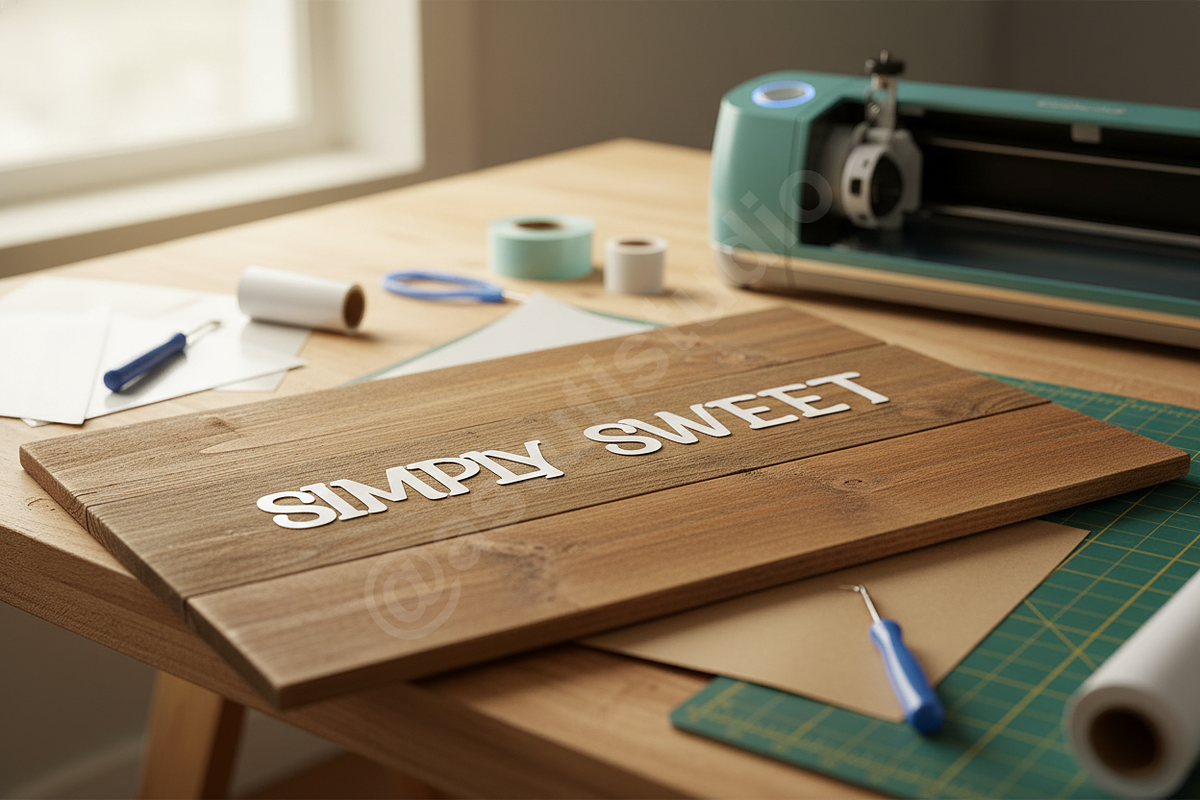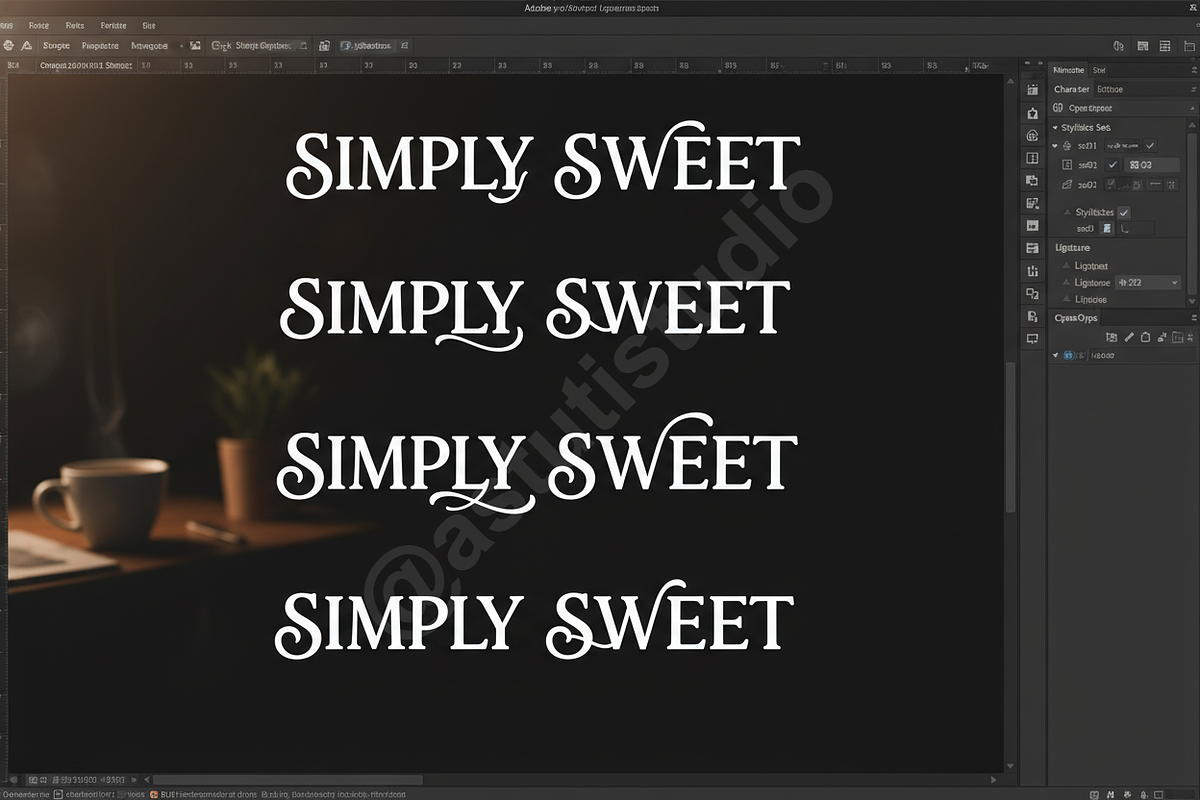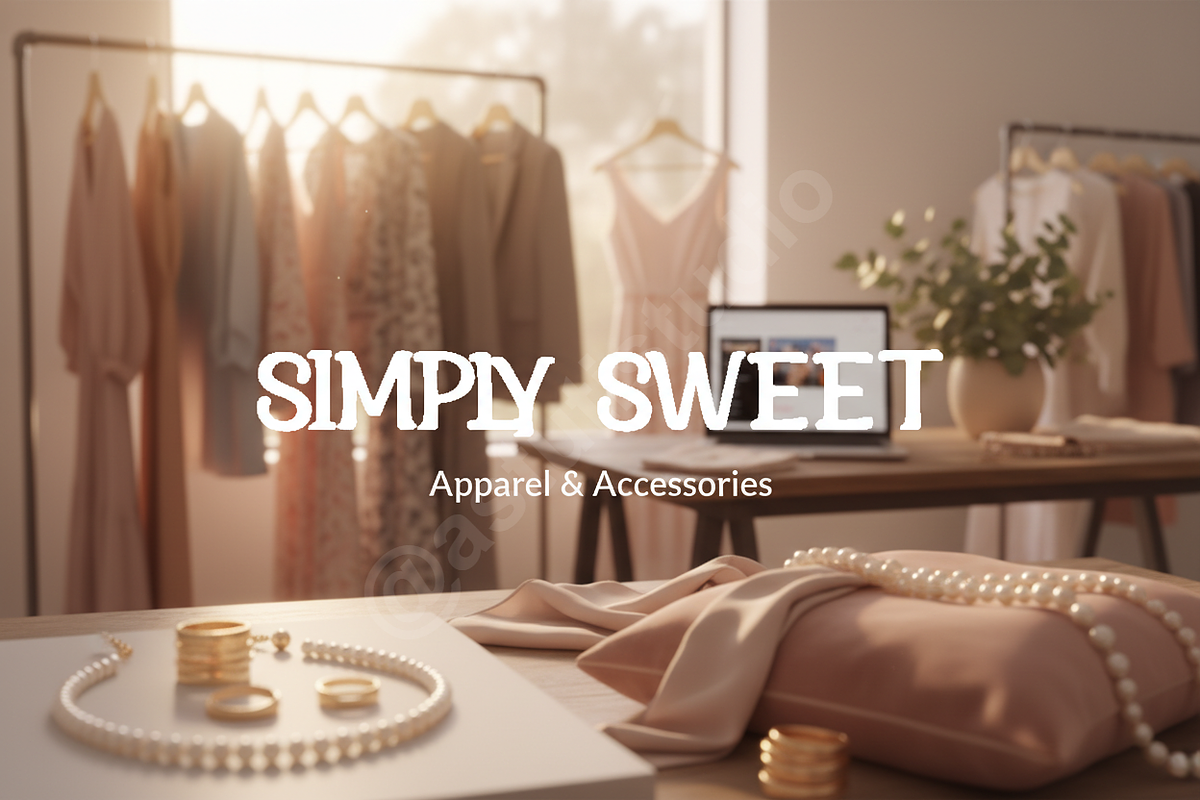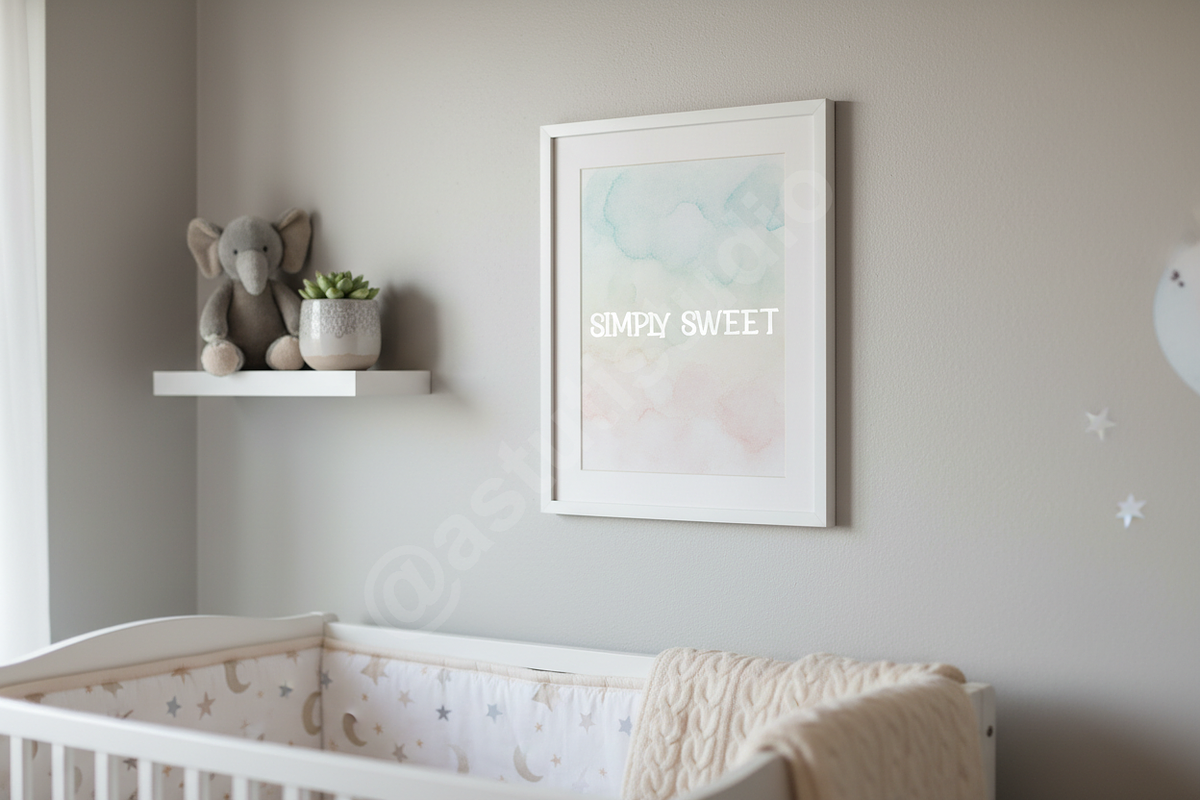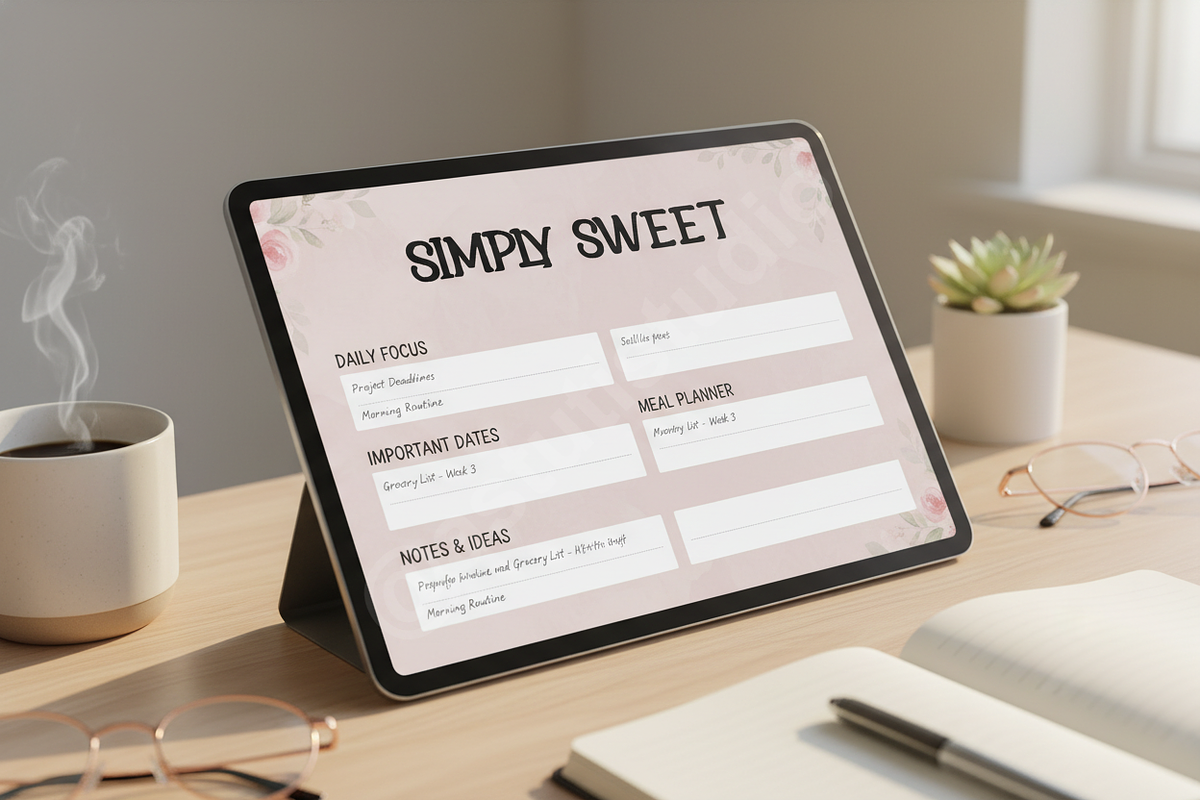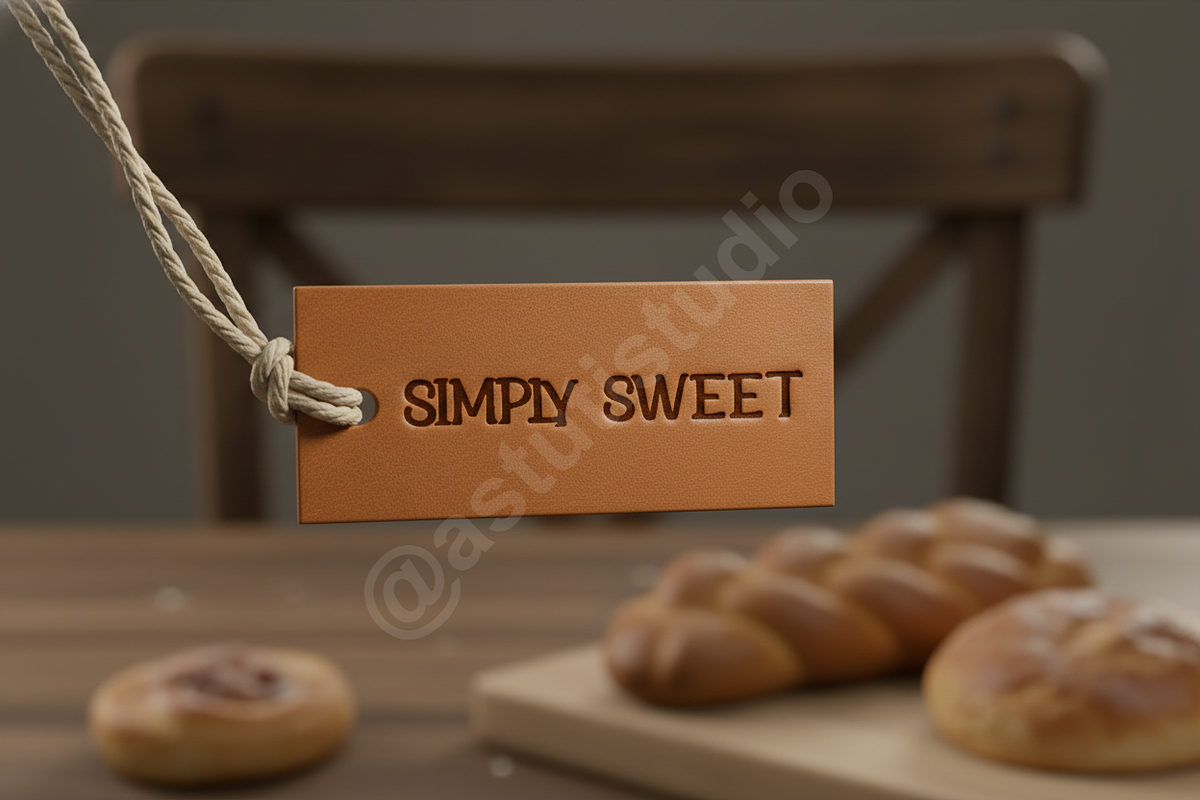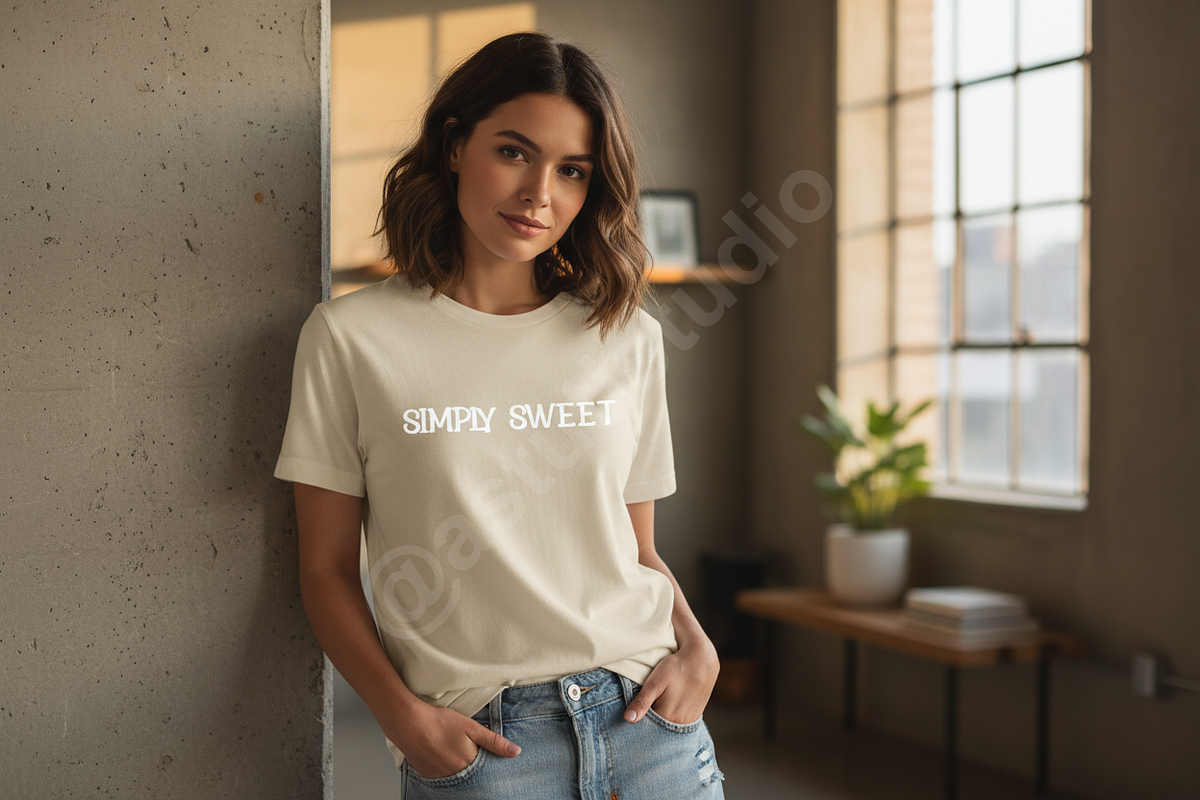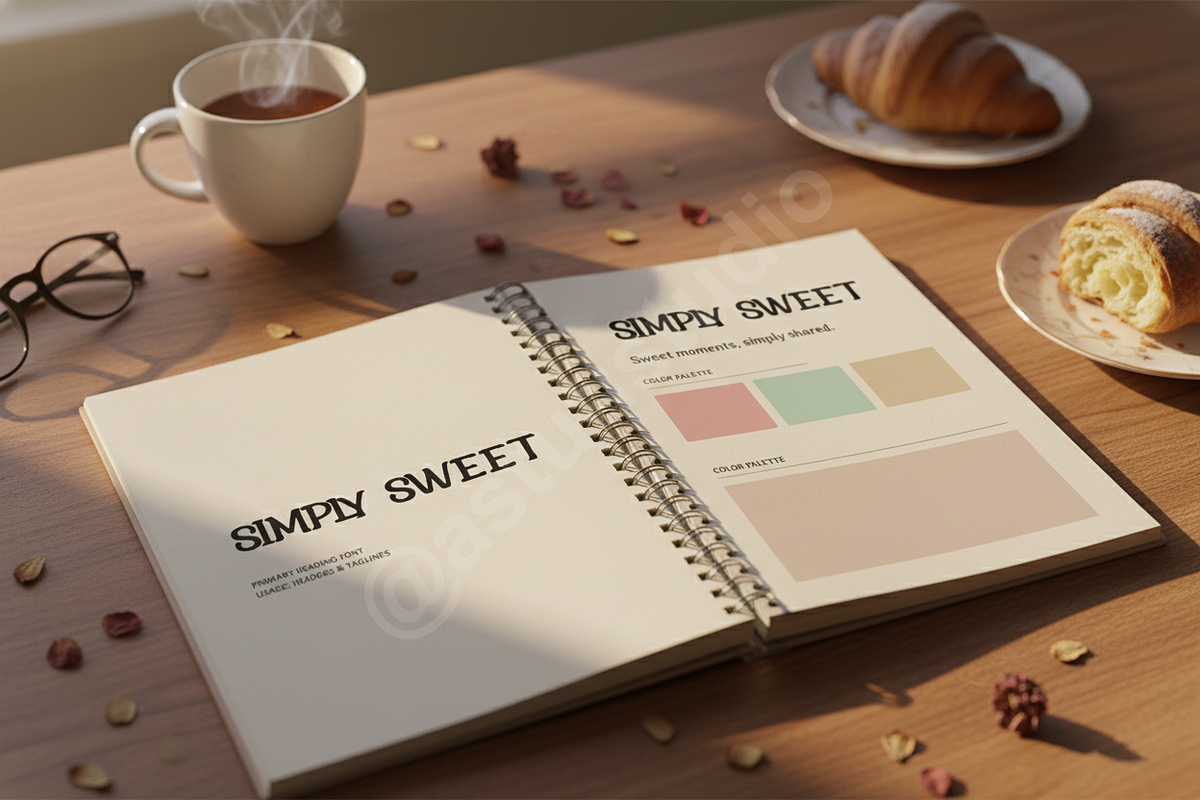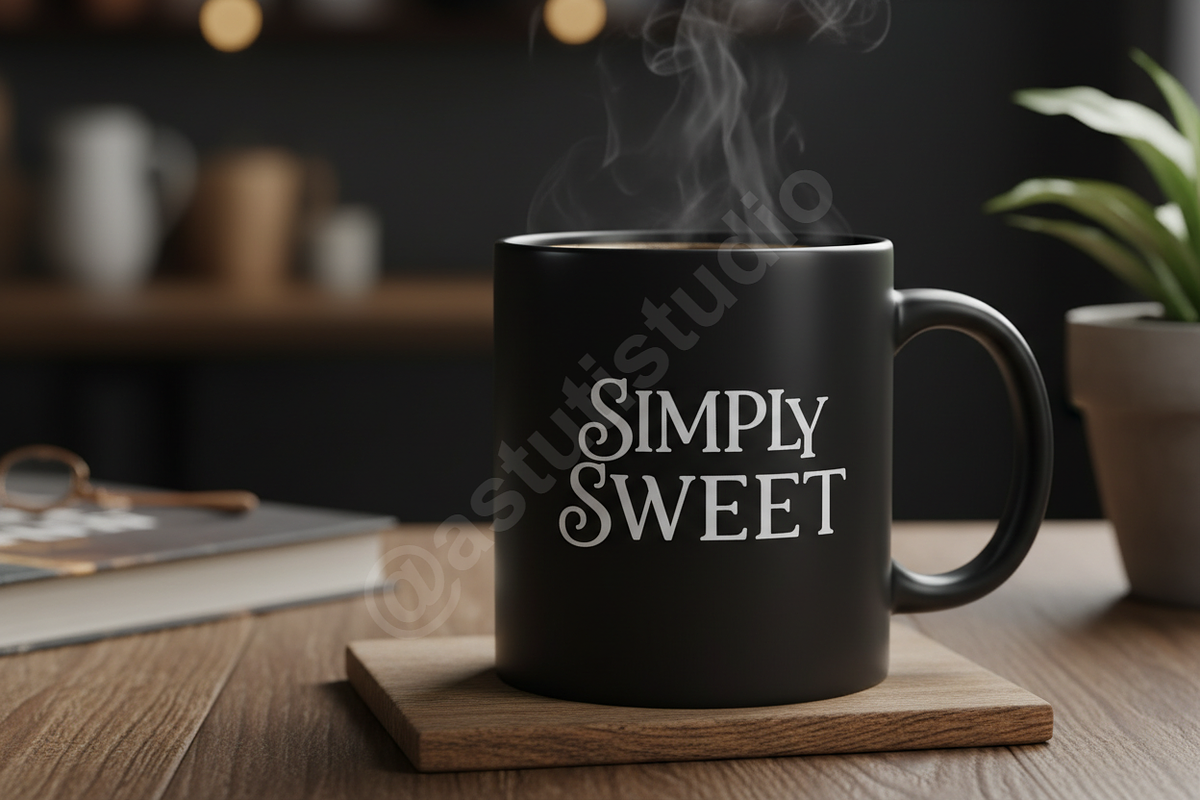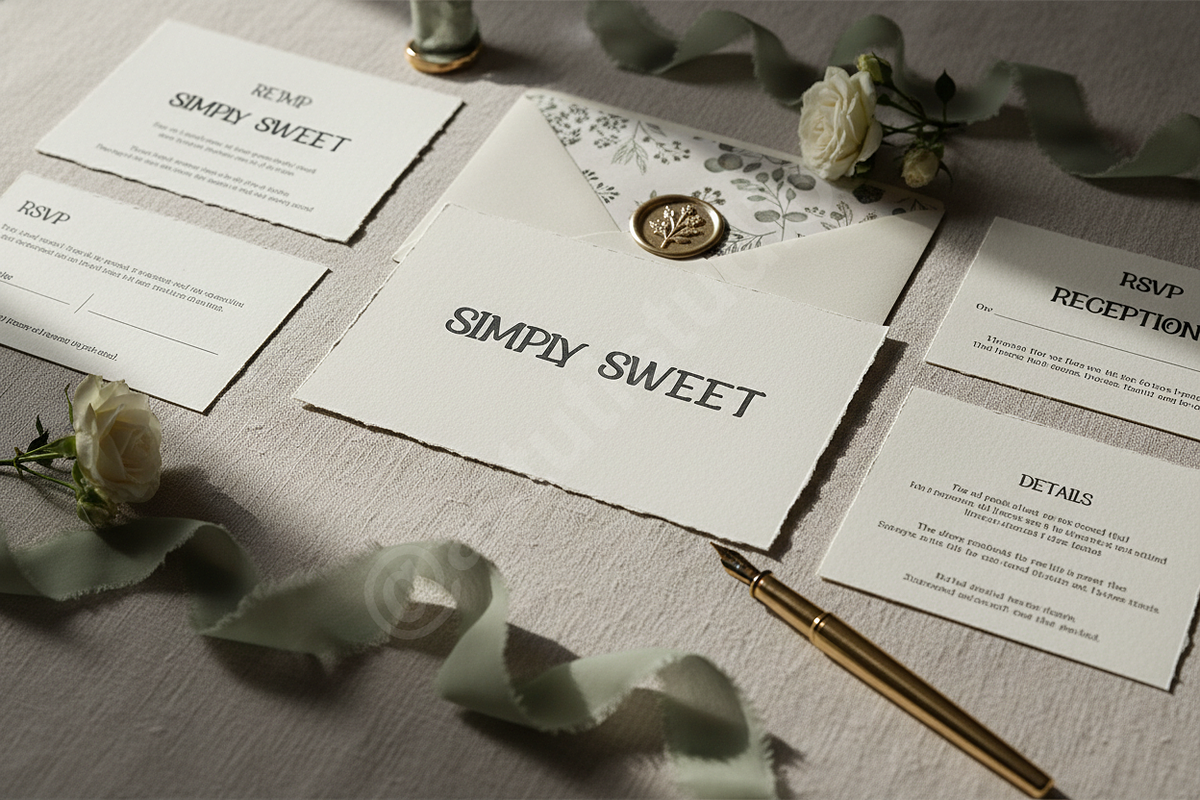
Notawe - Elegant Modern Serif Typefa
INTRODUCTION Notawe is a sophisticated serif typeface meticulously crafted for high-end aesthetics. It strikes a perfect balance between timeless elegance and contemporary minimalism, providing a luxurious foundation for your next creative project. Whether you are building a premium brand identity or designing a high-fashion editorial, Notawe offers the versatility and grace required for a professional finish.
- High-contrast letterforms for a refined look
- Elegant ligatures and stylistic alternates
- Full multilingual support for international projects
- Balanced proportions for maximum legibility
- Optimized for both print and digital applications
PERFECT FOR
- Luxury branding and identity systems
- Editorial design and magazine layouts
- High-end social media graphics
- Wedding invitations and stationery
- Premium packaging design